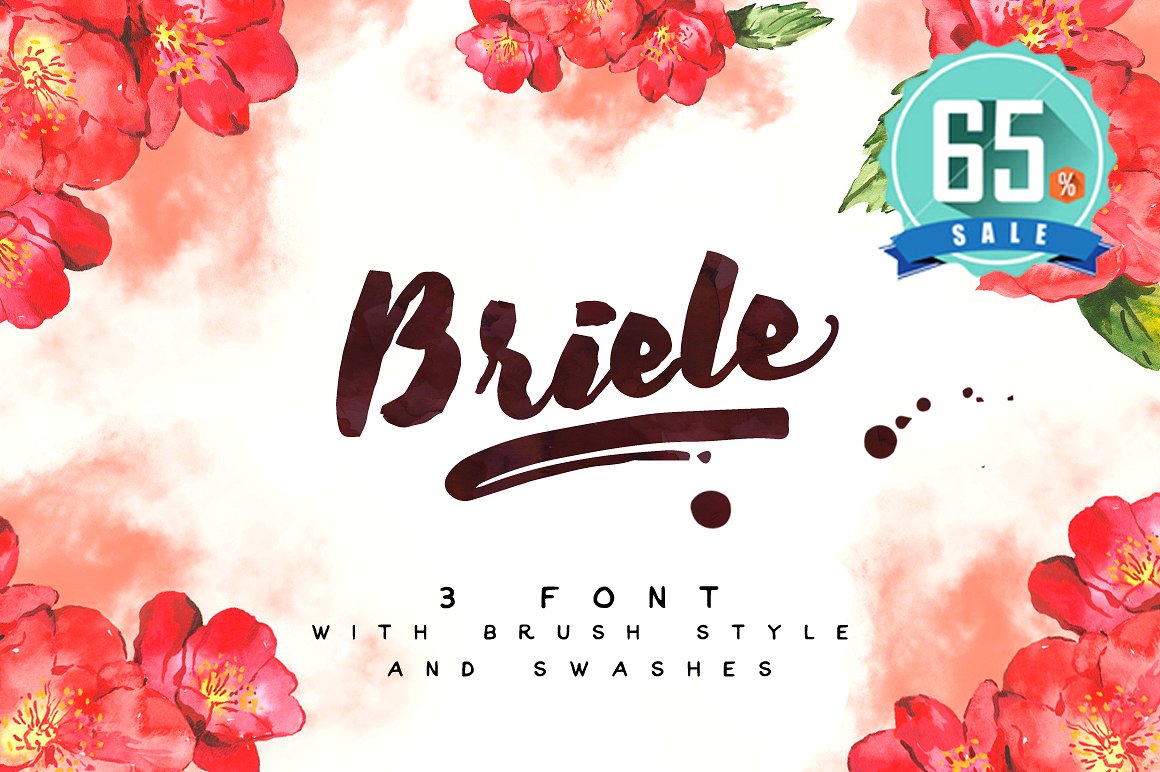
Briele
Briele Font Family
Hi there. If you’ve been patiently waiting for a highly useful, and incredibly versatile brush font pack, then wait no more! I’ve been working on this three font, but now it’s time to bundle it up, and tack on a super sweet price tag. Get $49 worth of gorgeous brush fonts, and its over 23 hand drawn swashes just for only $17. Yeah, that’s right, only $17! 😉